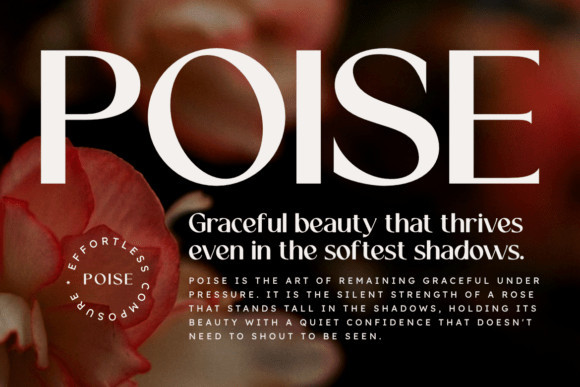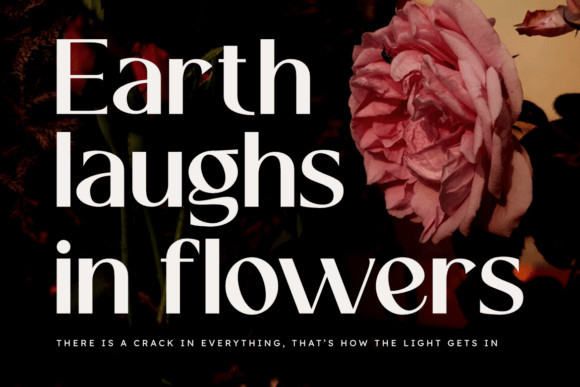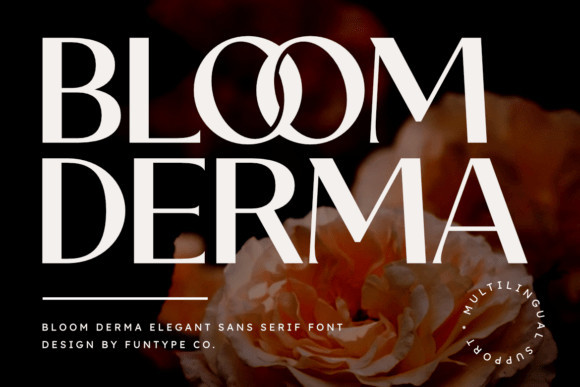
Bloom Derma Font
Bloom Derma Font is a bold and elegant sans serif font designed for impactful typography. With its refined structure and sophisticated strokes, this font is perfect for strong headlines, modern posters, album covers, lifestyle graphics, branding, and high-impact advertising. Its clean and confident design gives your visuals a striking and professional look.